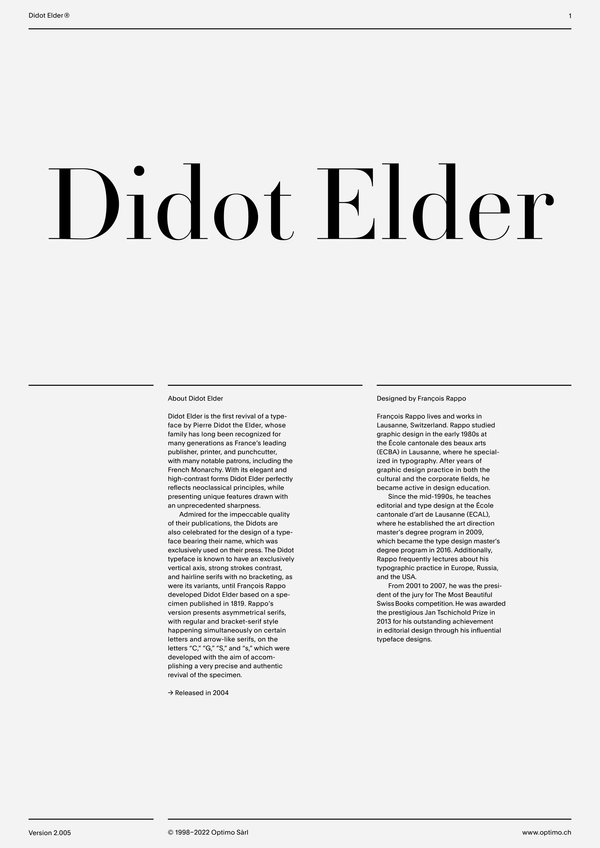
Didot Elder
This function formats the text in uppercase and adjusts spacing between all capital letters. It also applies the ‘Case Sensitive Forms’ feature which replaces certain characters with alternates that are better suited for all capital text, especially related to punctuation.
This feature adapts the position of a glyph after its surrounding context. For instance, a dash placed between two uppercase letters or numbers will be replaced by an uppercase version of the dash, slightly higher. This feature is usually active by default in Adobe applications.
This feature adapts the position of a glyph after its surrounding context. This feature is usually active by default in Adobe applications.
Based on the proportions of the capitals, lining figures have an invariable height. With the combination of the tabular spacing format, the width of each numeral is uniformized. This feature is useful when numerals need to all lined up. It facilitates the reading of numbers set within columns or tables. As some applications don’t have access to this feature, proportional figures are set as the default choice.
Based on the design of the lowercase, oldstyle figures have varying ascenders and descenders. Like most of the letters, each number has an appropriate width based on its shape. The combination of oldstyle figures with proportional setting generate numerals perfectly adapted for text.
Based on the design of the lowercase, oldstyle figures have varying ascenders and descenders. With the combination of the tabular spacing format, the width of each numeral is uniformized. This feature is useful when numerals need to all lined up. It facilitates the reading of numbers set within columns or tables.
With this feature, any numbers separated by a slash will automatically turn into a fraction. To fit in fraction configuration, numerals have been designed smaller and their weights have been adjusted to suit the typeface.
This feature replaces any letter following a numeral with its matching superior letters. Spanish, Portuguese and Italian language uses the feminine and masculine ordinal indicators such as ‘a’ for for 1º, 1ª. Ordinals are designed to match the weight of the typeface.
This feature substitutes glyphs with their matching smaller alternates. The numerators are the same glyphs that are used to create fractions, their vertical position remains within the capital letters height. These glyphs are reduced in size and designed slightly heavier to keep them consistent with the rest of the font.
This feature substitutes glyphs with their matching smaller alternates and low position glyphs. The denominators are the same glyphs that are used to create fractions, their vertical position remains within the base line. These glyphs are reduced in size and designed slightly heavier to keep them consistent with the rest of the font.
This feature substitutes glyphs with their matching smaller alternates which are set slightly above the height of the capital letters. These glyphs are reduced in size and designed slightly heavier to keep them consistent with the rest of the font.
Standard ligatures replaces a sequence of characters with a single ligature glyph, they are designed to improve kerning and readability of certain letter pairs.
Admired for the impeccable quality of their publications, the Didots are also celebrated for the design of a typeface bearing their name, which was exclusively used on their press. The Didot typeface is known to have an exclusively vertical axis, strong strokes contrast, and hairline serifs with no bracketing, as were its variants, until François Rappo developed Didot Elder based on a specimen published in 1819. Rappo’s version presents asymmetrical serifs, with regular and bracket-serif style happening simultaneously on certain letters and arrow-like serifs, on the letters “C,” “G,” “S,” and “s,” which were developed with the aim of accomplishing a very precise and authentic revival of the specimen.